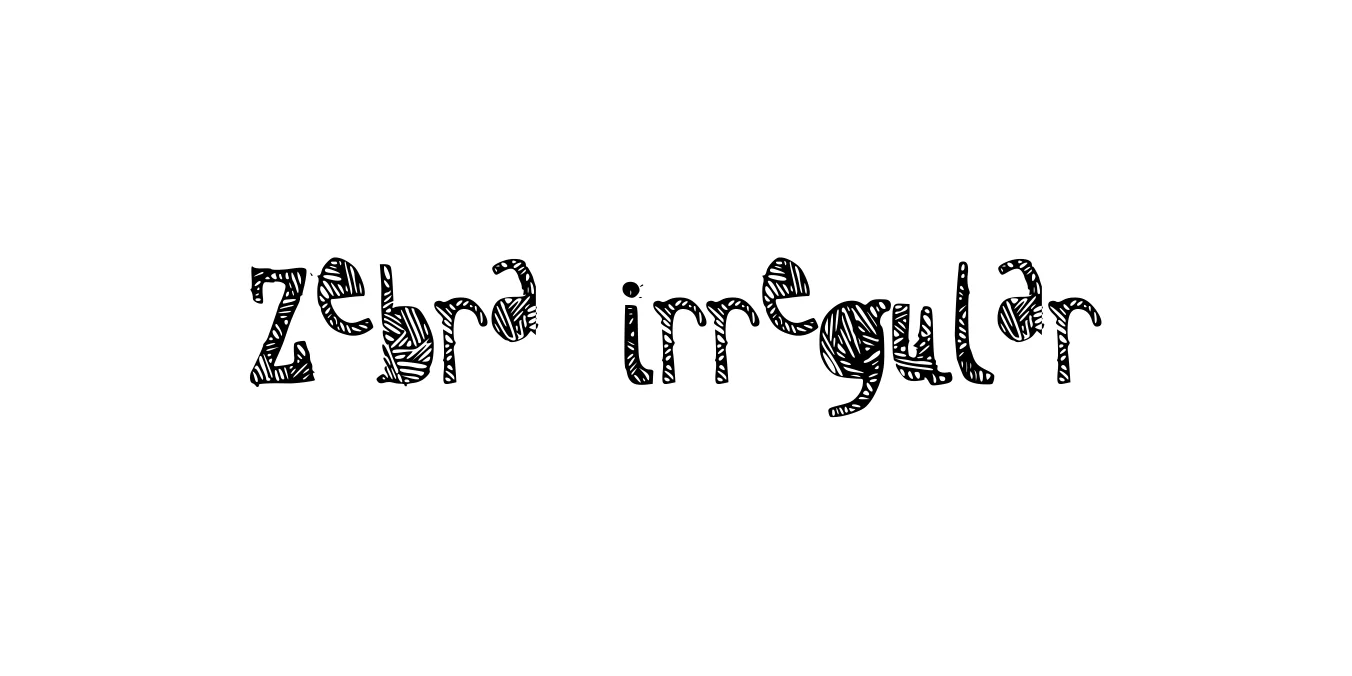
Zebra irregular
Designed by Galdino Otten
Zebra irregular is a distinctive display font that draws inspiration from the natural, rhythmic patterns of a zebra's hide. This typeface features bold, heavy letterforms characterized by high-contrast black and white stripes that create a sense of movement and energy. It is specifically crafted for high-impact visual communication, making it a favorite for designers looking to inject a wild, exotic aesthetic into their typography.
The history of Zebra irregular is rooted in the decorative font movement of the digital era, where designers sought to create textures within type. Unlike standard striped fonts, this version emphasizes an irregular and organic feel, mimicking the uniqueness of animal markings. It is most effective when used at large point sizes for headlines, book covers, and theatrical posters where the intricate linework can be showcased without losing clarity.
Zebra irregular Best Uses
High-impact headlines for wildlife events or safari-themed parties.
Creating a bold and unique visual identity for fashion or lifestyle brands.
Attention-grabbing graphics for Instagram, Pinterest, and YouTube thumbnails.
Great for t-shirt prints, mugs, and apparel with an animal motif.